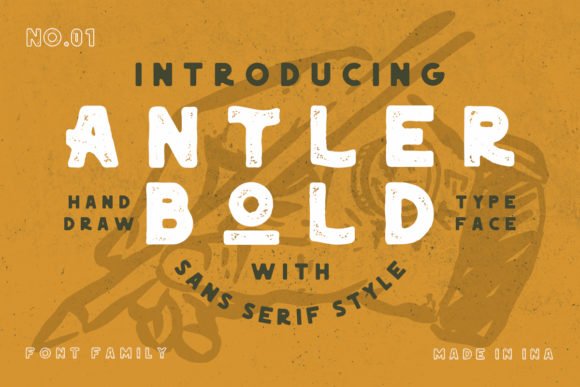
Unleashing the Power of Nostalgia: The Timeless Antler Bold Font
As designers, we’ve all been there – staring at a blank page, trying to conjure up the perfect combination of words and images to bring a concept to life. For many of us, the spark of inspiration often comes from a font that evokes a sense of nostalgia and familiarity. That’s where the Antler Bold Font comes in – a classic sans serif font that instantly transports us back to a bygone era.
Antler Bold Font is a versatile font that features stunning alternates and comes in four distinct styles, making it the perfect choice for designers looking to add a touch of elegance and sophistication to their projects. Whether you’re working on a branding project, a magazine article, or a website, the Antler Bold Font is sure to bring a sense of cohesion and professionalism to your design.
Key Features of Antler Bold Font
- Unique Characteristics: Distinctive, bold design with a rugged, hand-drawn feel, ideal for headlines and titles
- Font Style: Available in a single bold weight, with no light or regular versions, perfect for making a statement
- Language Support: Supports a wide range of languages, including Latin, Cyrillic, and Greek alphabets
Review of Antler Bold Font
Overall, I think the Antler Bold Font is a solid choice for typography enthusiasts. Here are a few things that really stand out to me: ✨
- Unique aesthetic: The Antler Bold Font has a distinctive, hand-crafted feel that sets it apart from more common sans-serif fonts.
- High contrast: The bold weight of this font is really effective at grabbing attention, making it perfect for headlines and titles.
- Customizable: I appreciate that Antler Bold Font offers a range of customization options, allowing designers to tailor the font to their specific needs.
However, there are a few limitations that should be considered: ⚠️
- Compatibility issues: I’ve encountered some compatibility problems with certain software and systems, which can be frustrating to work around.
- Limited language support: Unfortunately, Antler Bold Font doesn’t support as many languages as I would like, which can be a problem for global projects.
Overall, I think the Antler Bold Font is a great choice for designers who want to add some personality to their typography. While it may have some limitations, its unique aesthetic and high contrast make it a valuable addition to any design toolkit.
Tips for Getting the Most Out of Antler Bold Font
Antler Bold Font is perfect for creating attention-grabbing headlines and titles. To get the most out of it, use it sparingly and in conjunction with other fonts to create visual interest.
Antler Bold Font is commonly used for:
- Print design and publishing
Alternative Fonts to Antler Bold
Font 1: Arial Black
Arial Black is a sans-serif font that is similar to Antler Bold in terms of its bold and modern look. It is ideal for use in titles and headings where a clear and easy-to-read font is required. Unlike Antler Bold, Arial Black is more geometric in shape, making it suitable for digital displays.
Font 2: Helvetica Bold
Hellvetica Bold is a classic sans-serif font that is often used in corporate and professional settings. It is similar to Antler Bold in terms of its clean and modern look, but has a more rounded edge. Helvetica Bold is ideal for use in titles, headings, and body text where a clear and professional font is required.
Font 3: Impact
Impact is a sans-serif font that is similar to Antler Bold in terms of its bold and dramatic look. It is ideal for use in titles and headings where a clear and eye-catching font is required. Unlike Antler Bold, Impact is more condensed in shape, making it suitable for use in narrow spaces.
Font 4: Montserrat Bold
Montserrat Bold is a sans-serif font that is similar to Antler Bold in terms of its modern and urban look. It is ideal for use in titles, headings, and body text where a clear and modern font is required. Unlike Antler Bold, Montserrat Bold has a more condensed shape, making it suitable for use in narrow spaces.
The Antler Bold Font is a vector font, which means that it can be scaled up or down without losing any quality. However, it is not possible to modify the font’s design or structure, as this would require a high level of technical expertise and specialized software.
What is the character set of the Antler Bold Font?
The Antler Bold Font supports a wide range of languages, including Latin, Cyrillic, and Greek. It includes a comprehensive character set, including punctuation, numerals, and special characters, as well as a range of ligatures and swashes.